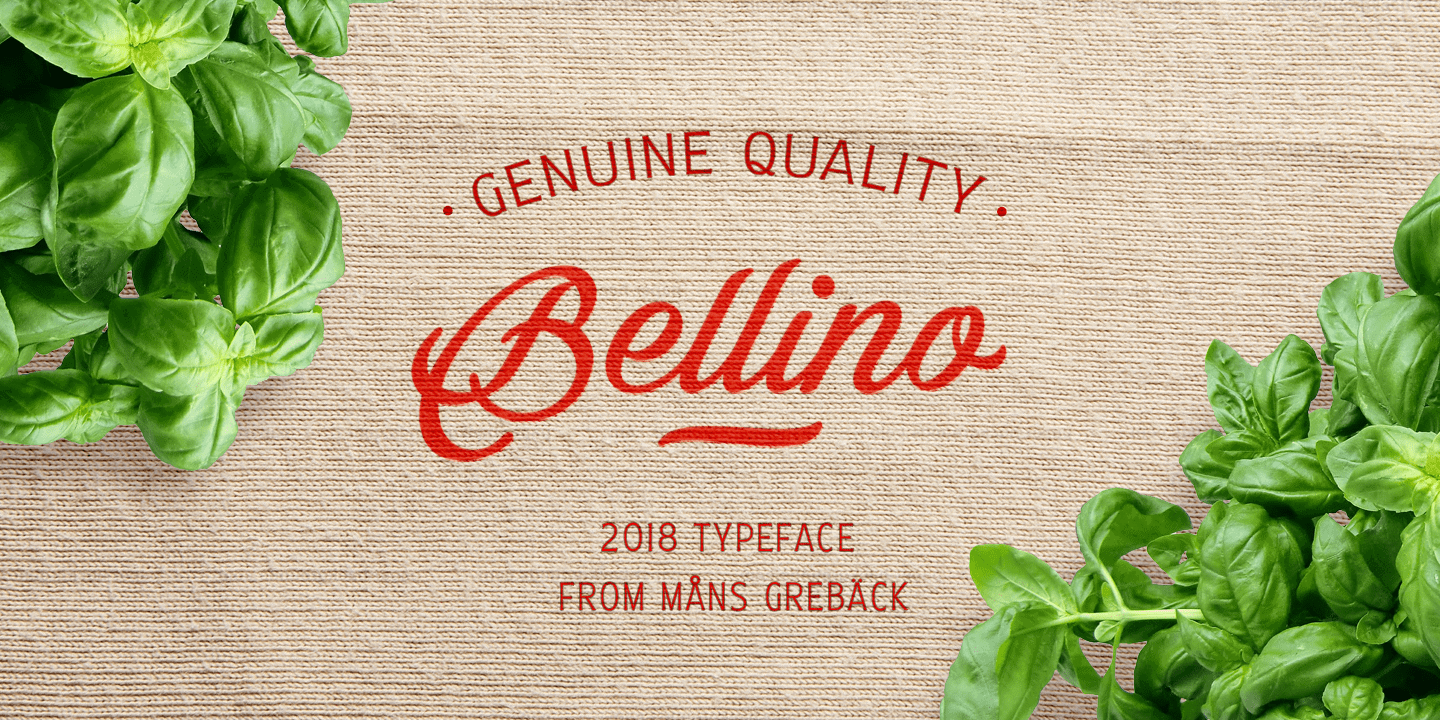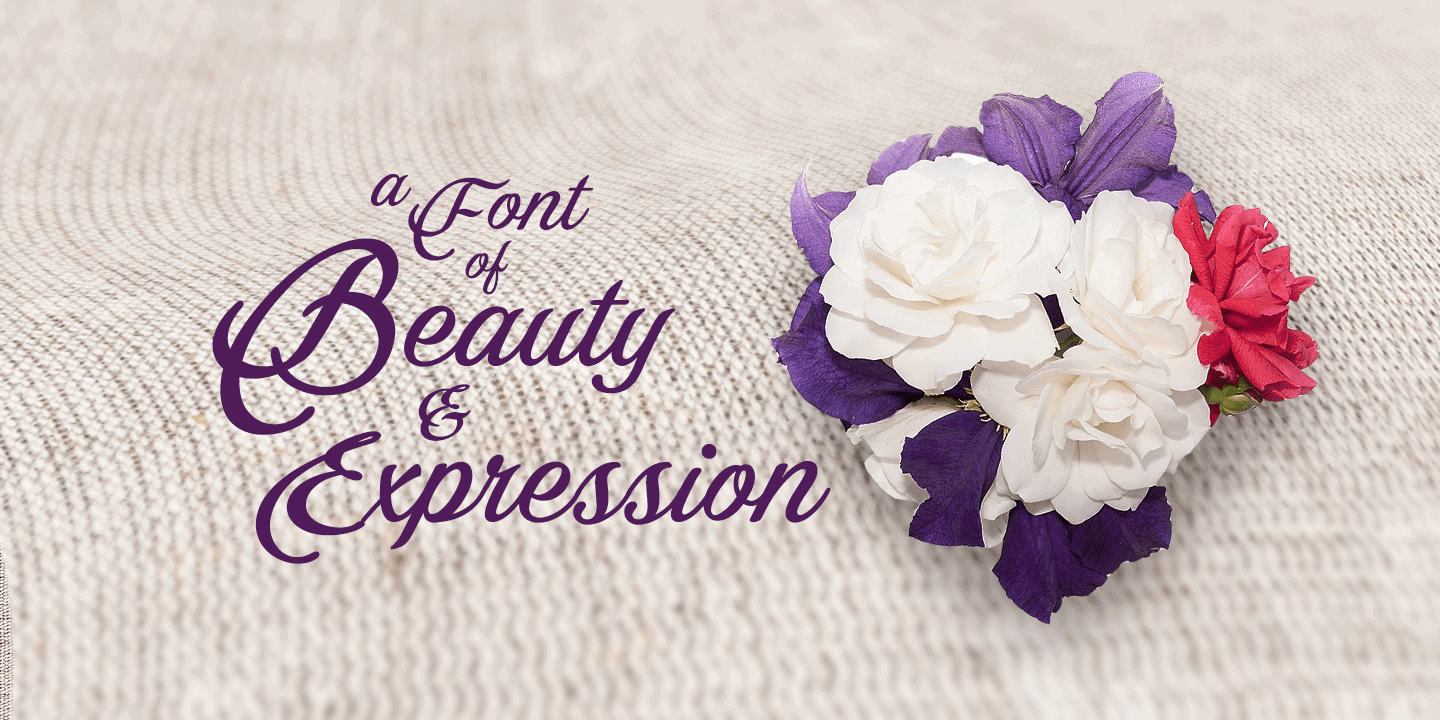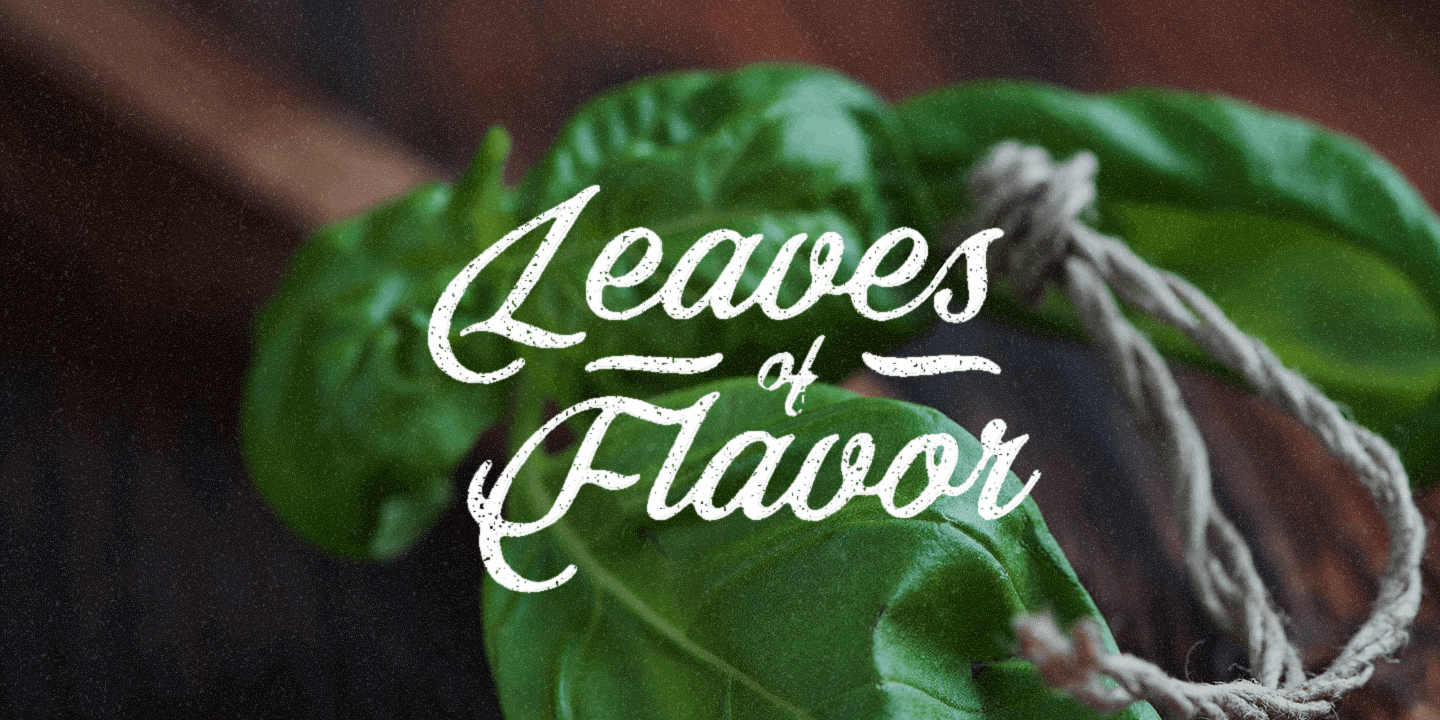
Bellino
Bellino is a well-crafted script typeface. Drawn by Måns Grebäck during 2018, this high-quality font has beautiful letter shapes and swashy capitals. Use one or more underscores after any word to underline.
Example: Bellino___
The font contains stylistic, initial and final alternates, as well as ligatures. It also has extensive language support.